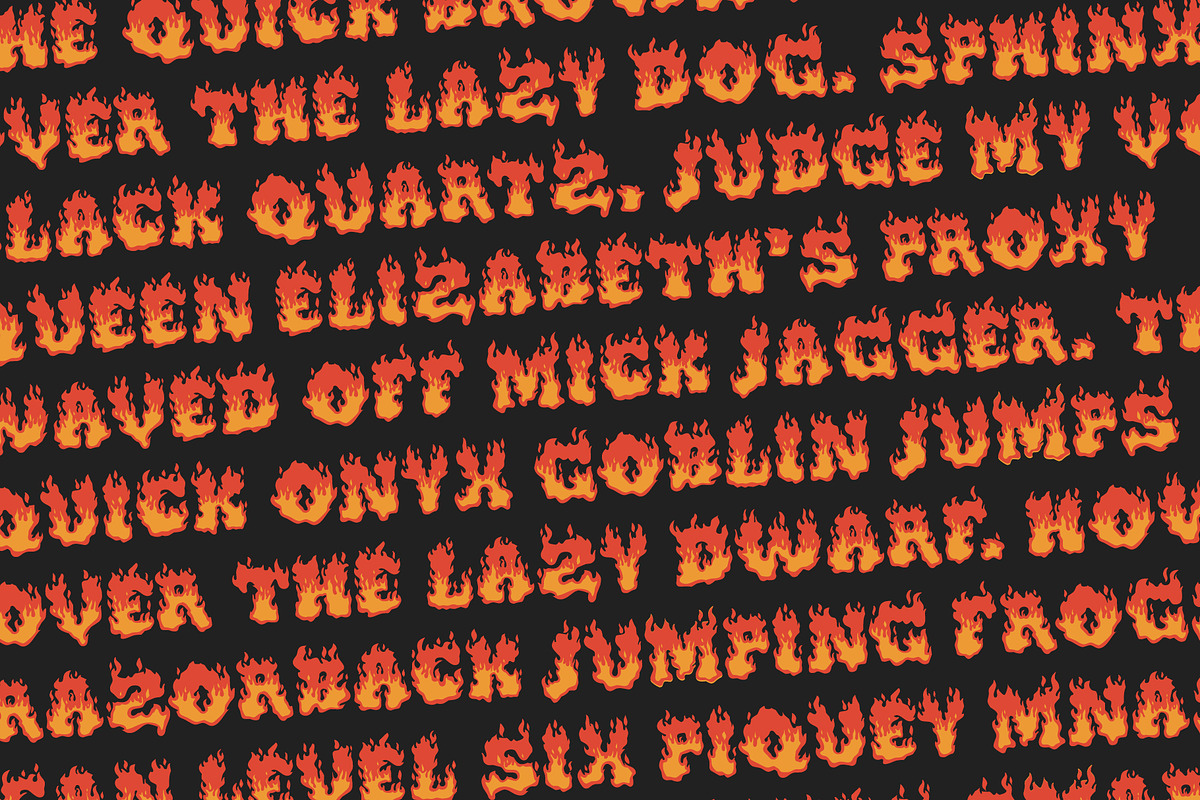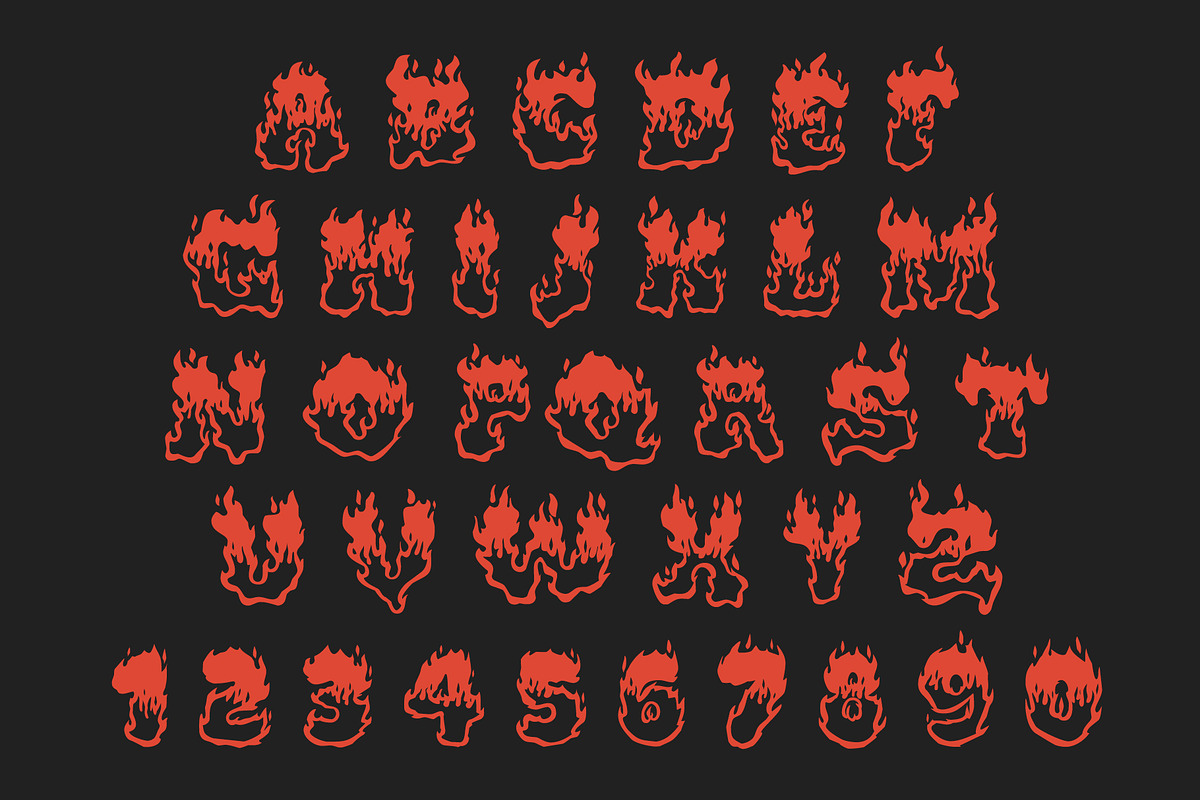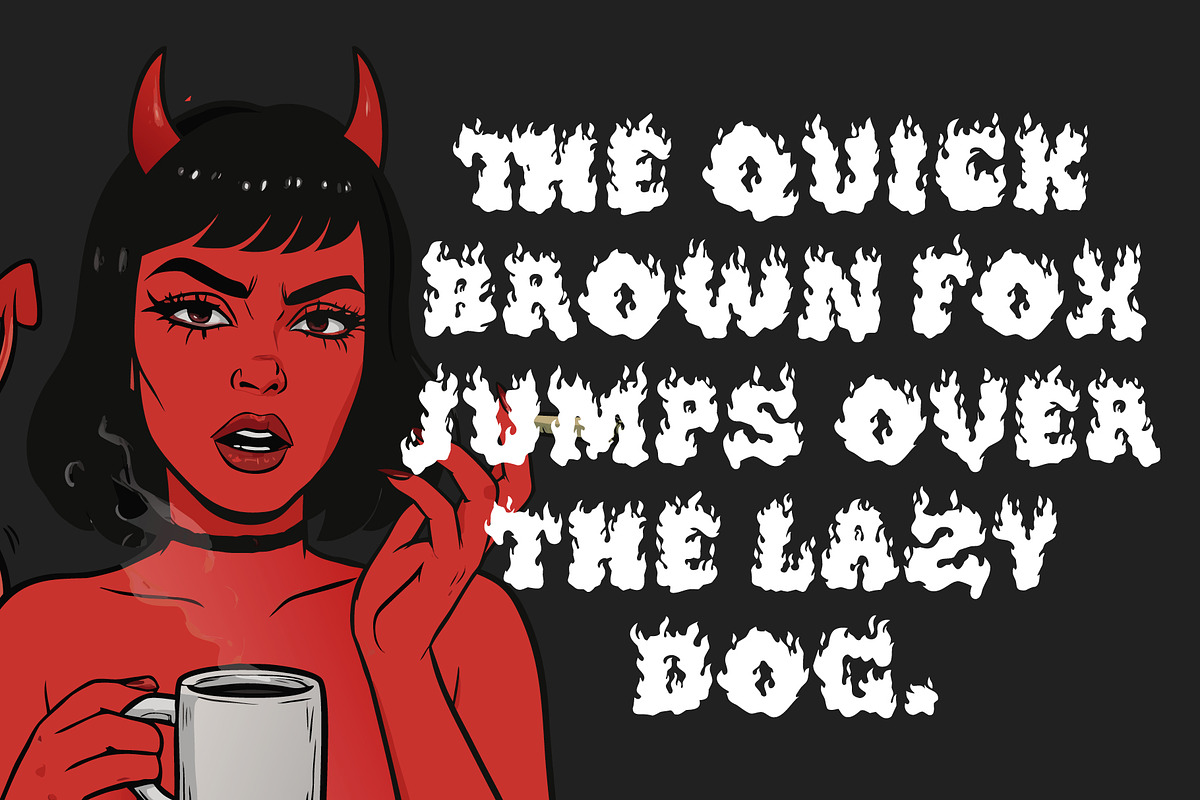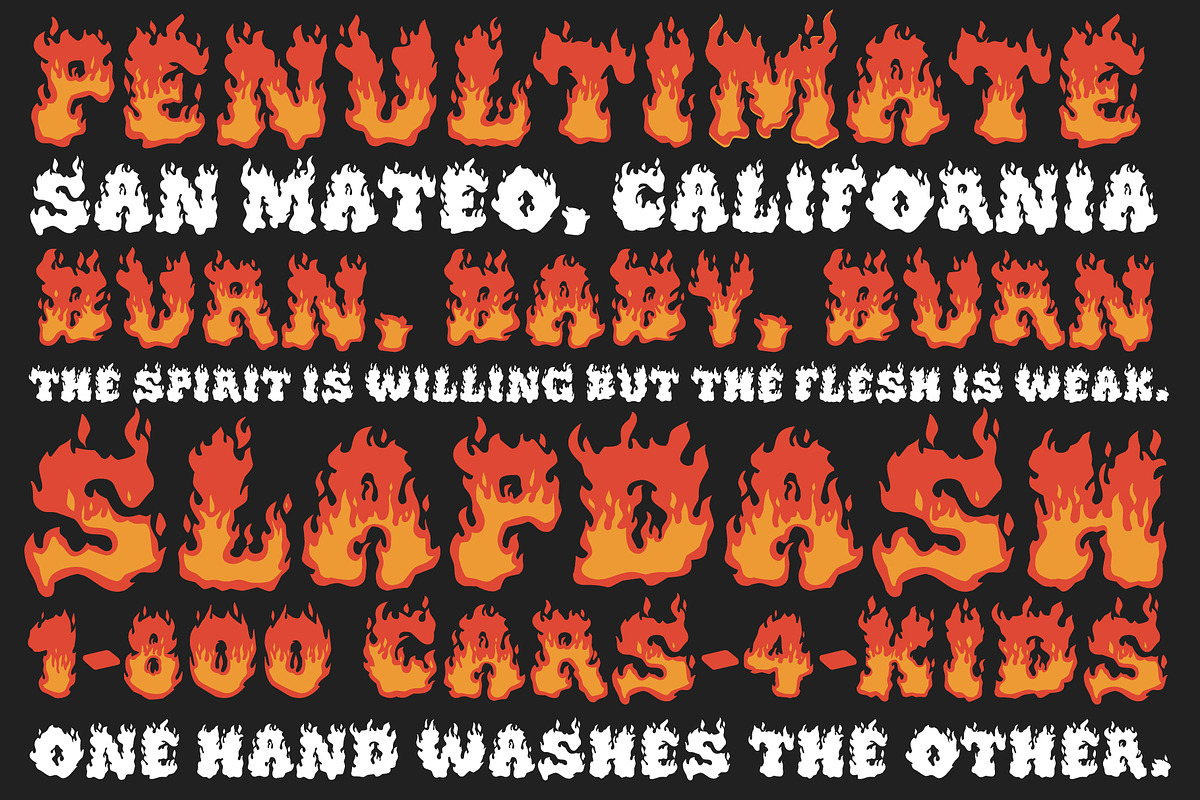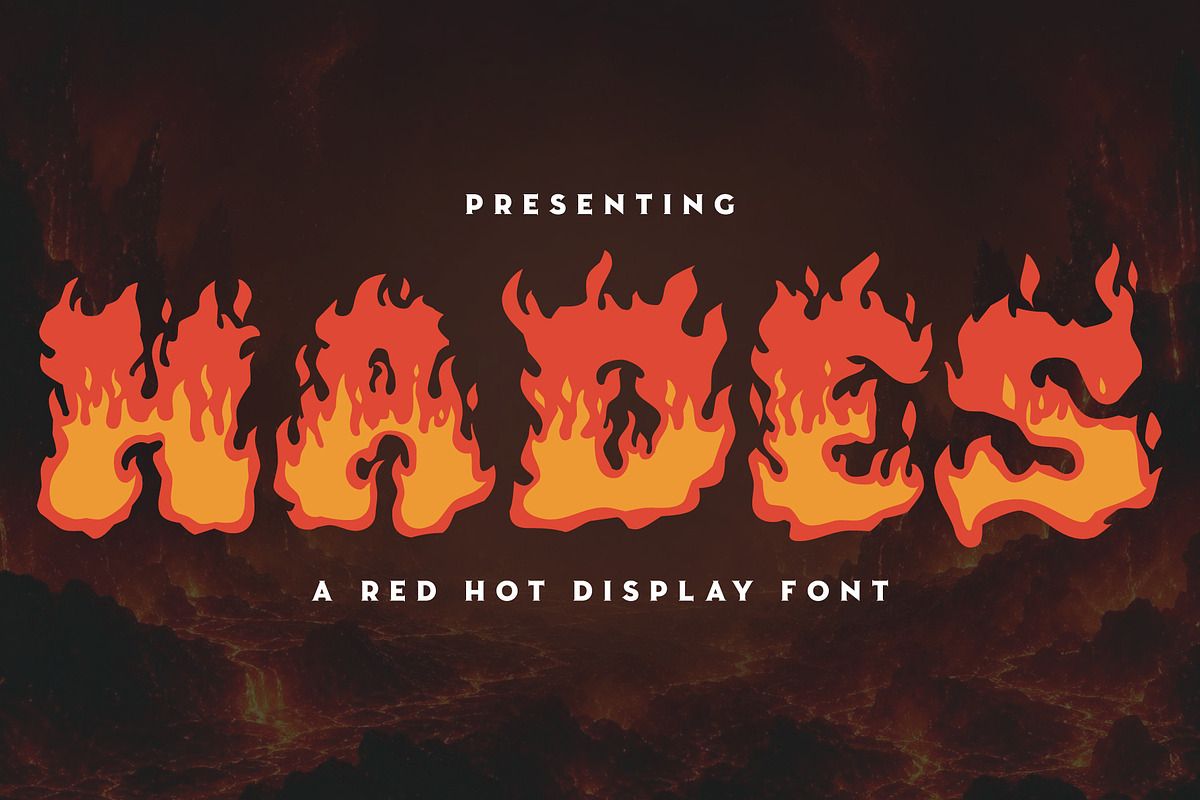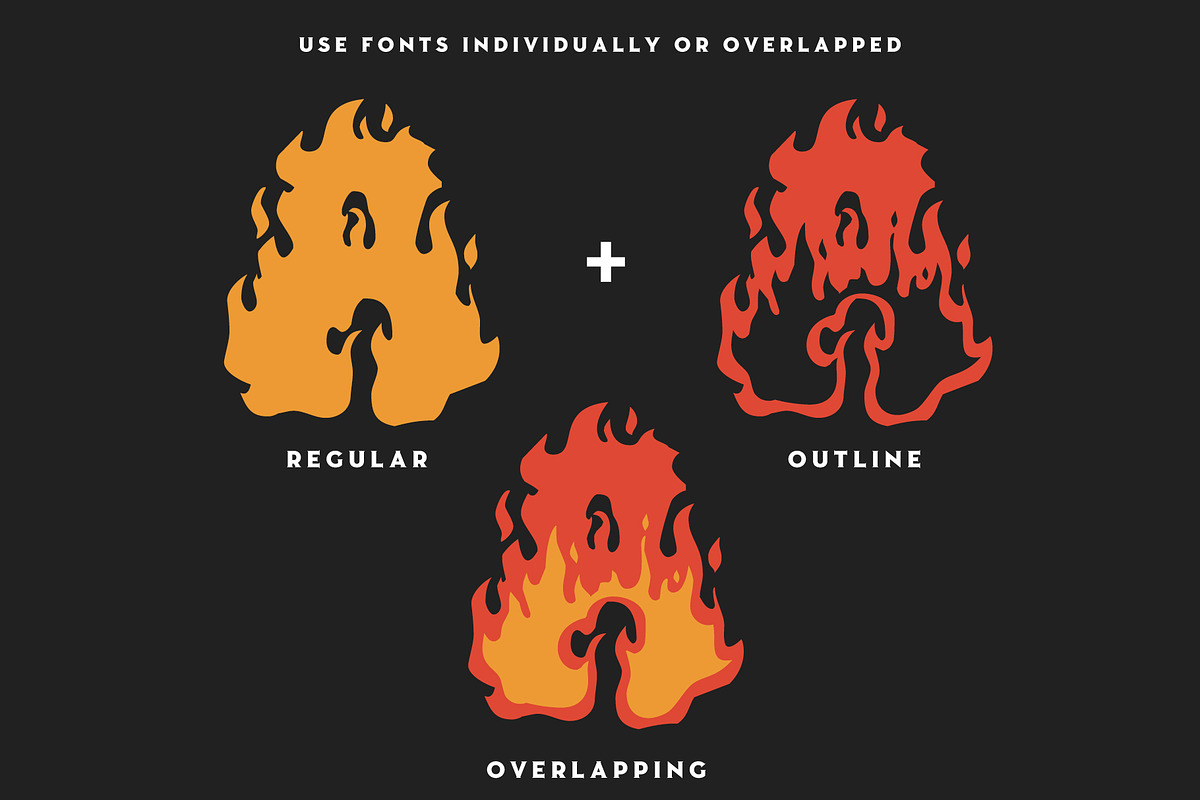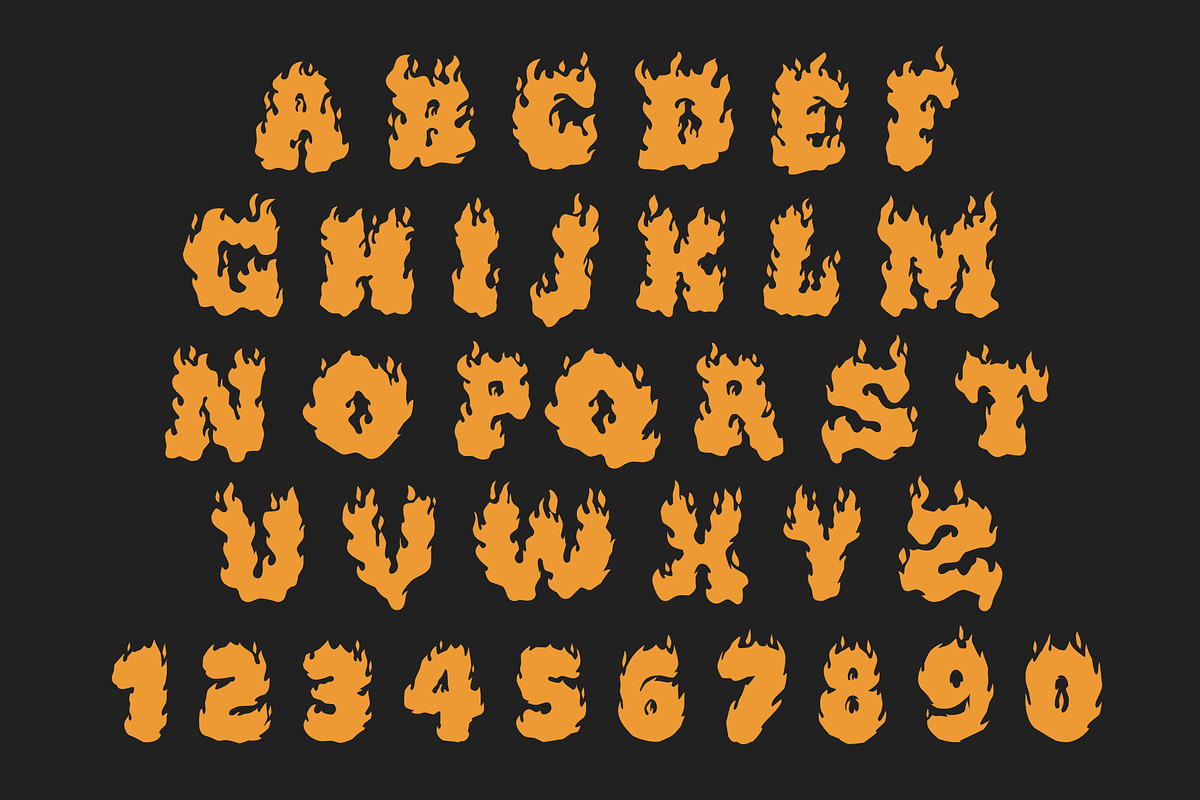
Hades
Hades is a red-hot layered flame display font built for posters, merch, tattoo flash, hot sauce labels, punk flyers, horror graphics, and anything that needs to look like it crawled out of a burning jukebox.
Inspired by vintage monster posters, devilish diner graphics, hot rod decals, and Saturday-night-trash fire energy, Hades turns every letter into a chunky little blaze. It is loud, playful, and a little sinister, without getting too messy to actually use.
The font includes individual regular and outline styles that can be used on their own or stacked together for a full flame effect. Set it in one color for a bold graphic hit, use the outline for a scorched cutout look, or overlap both styles for that red-hot, two-tone burn.
It works best when you want type to feel dangerous, funny, retro, and alive. Think horror comedy posters, punk show flyers, BBQ packaging, tattoo shop promos, hot sauce labels, Halloween graphics, garage brands, album art, and merch that needs to yell from across the room.
Perfect for posters, merch graphics, tattoo flash, hot sauce and BBQ labels, punk flyers, horror graphics, album art, retro novelty branding, Halloween designs, and loud social graphics.
Includes uppercase, lowercase, numbers, light punctuation, and layered regular/outline styles.